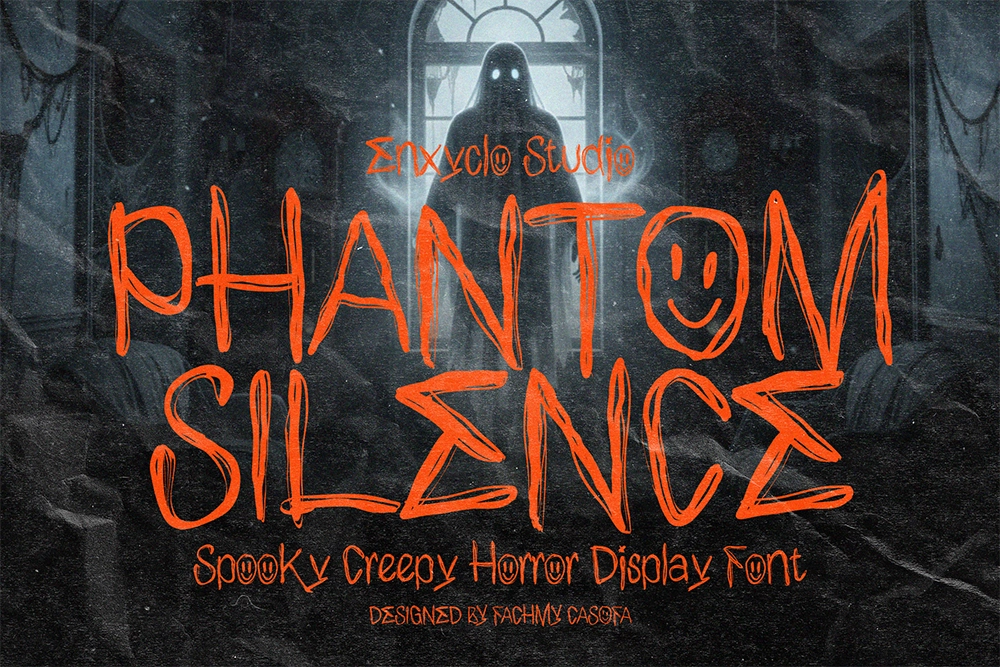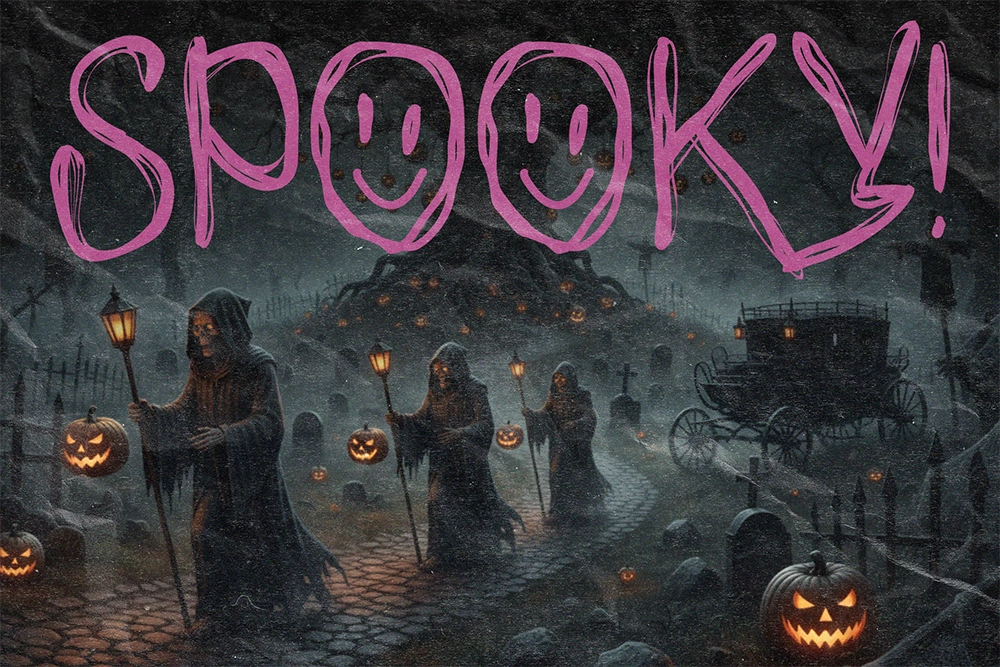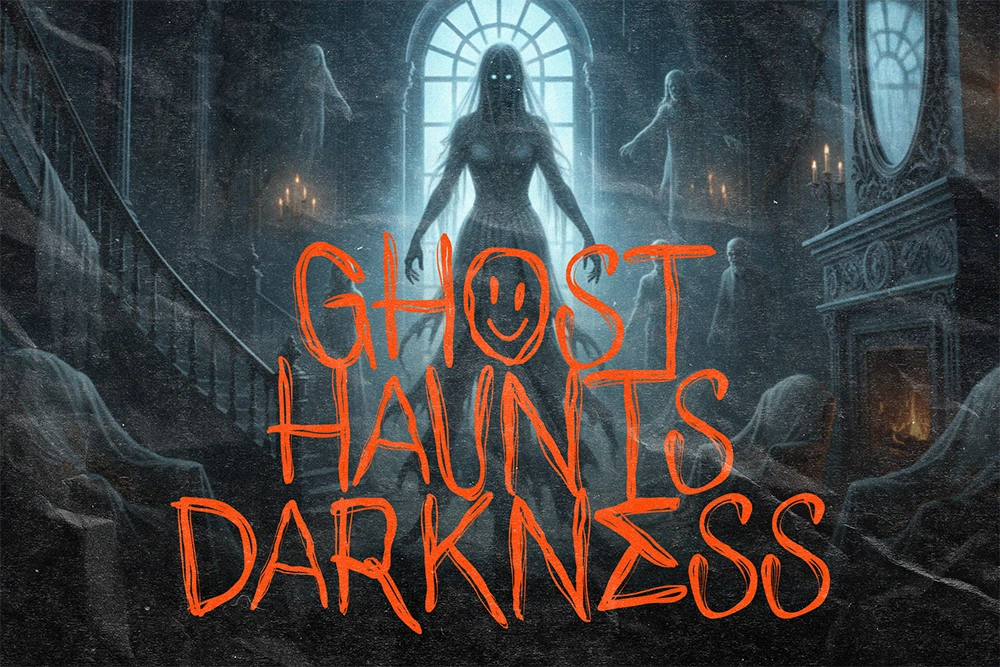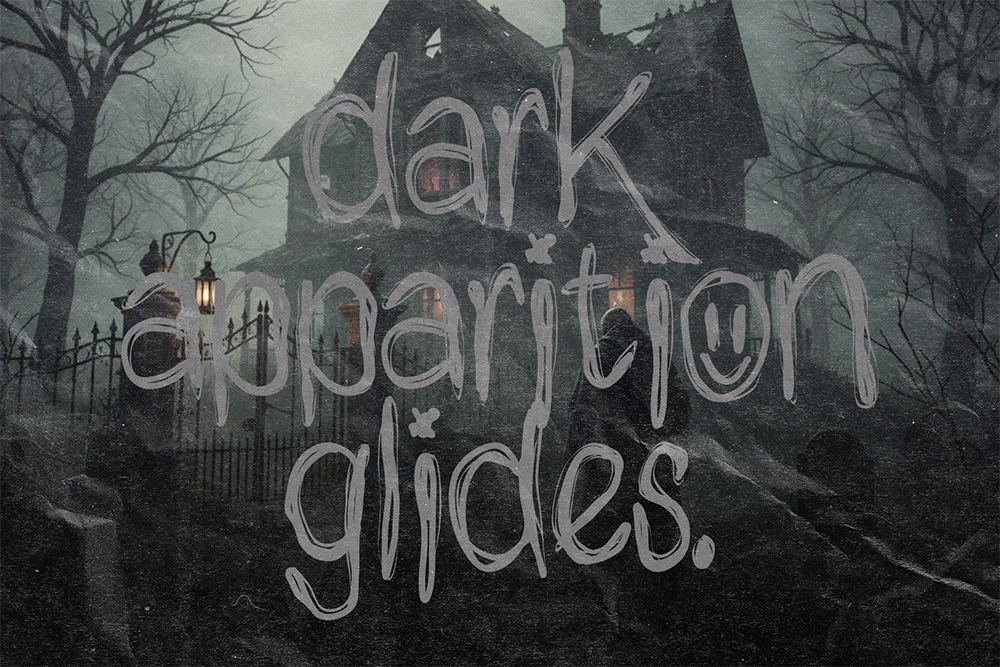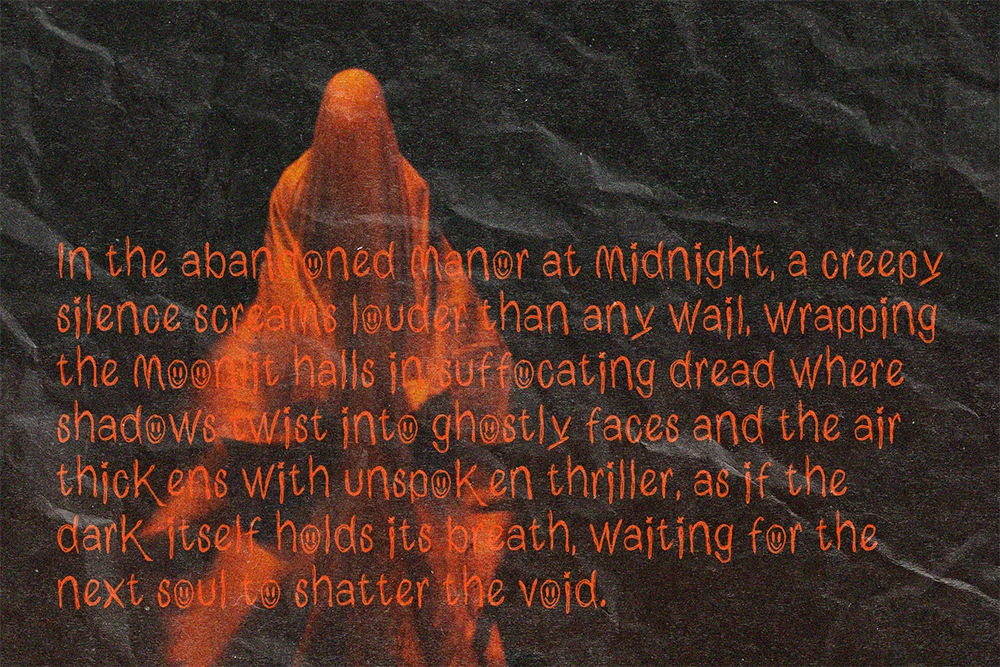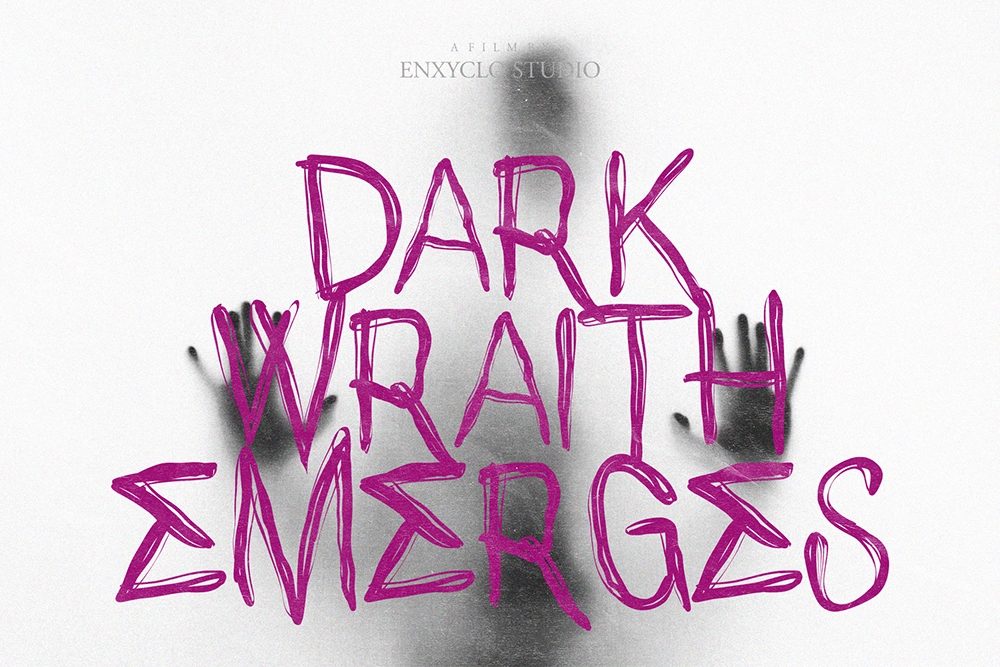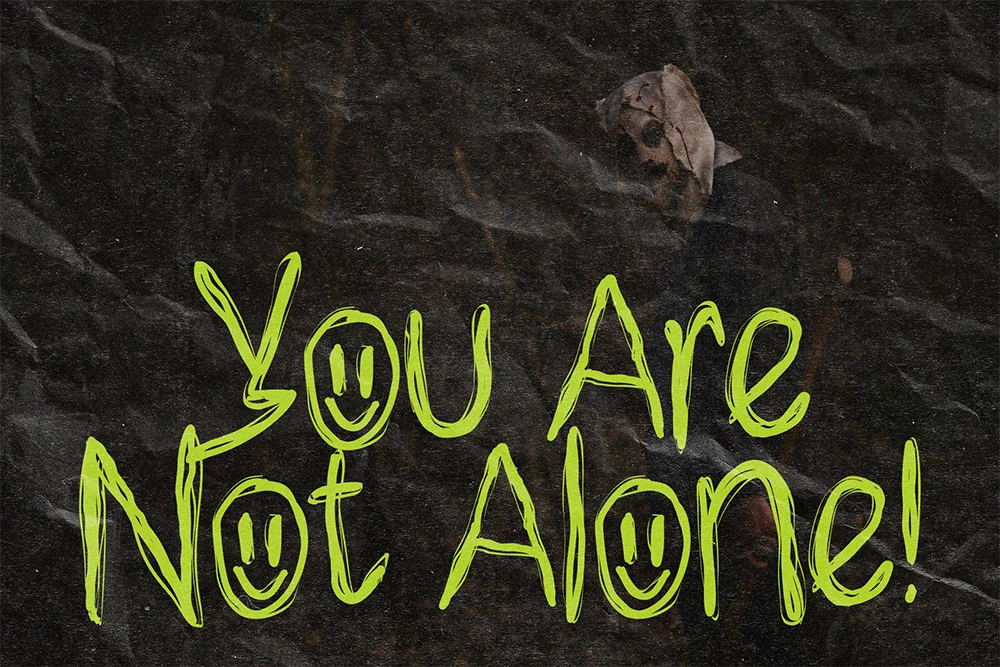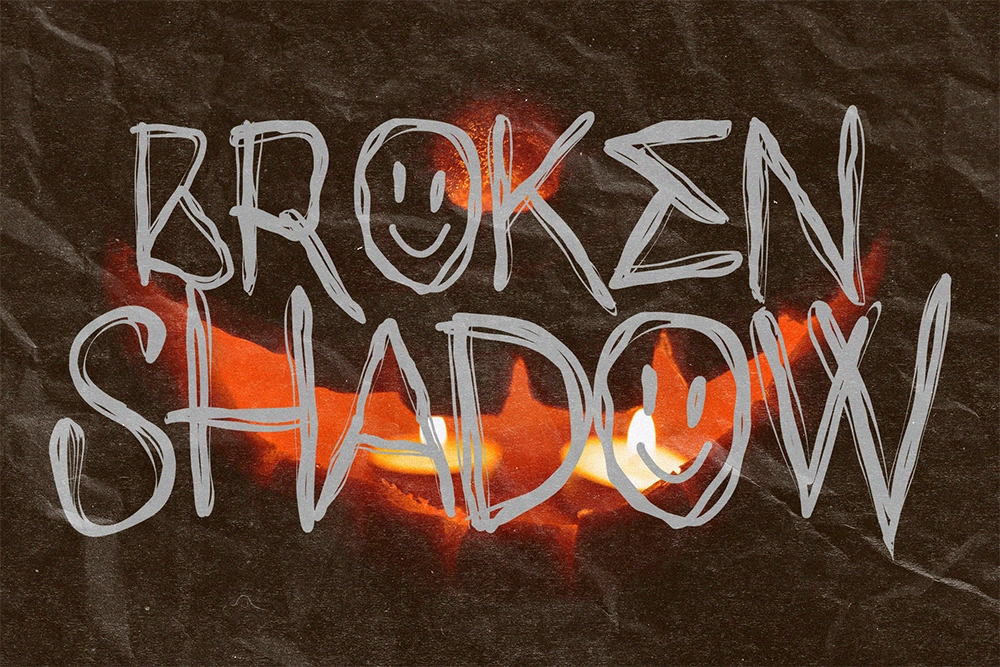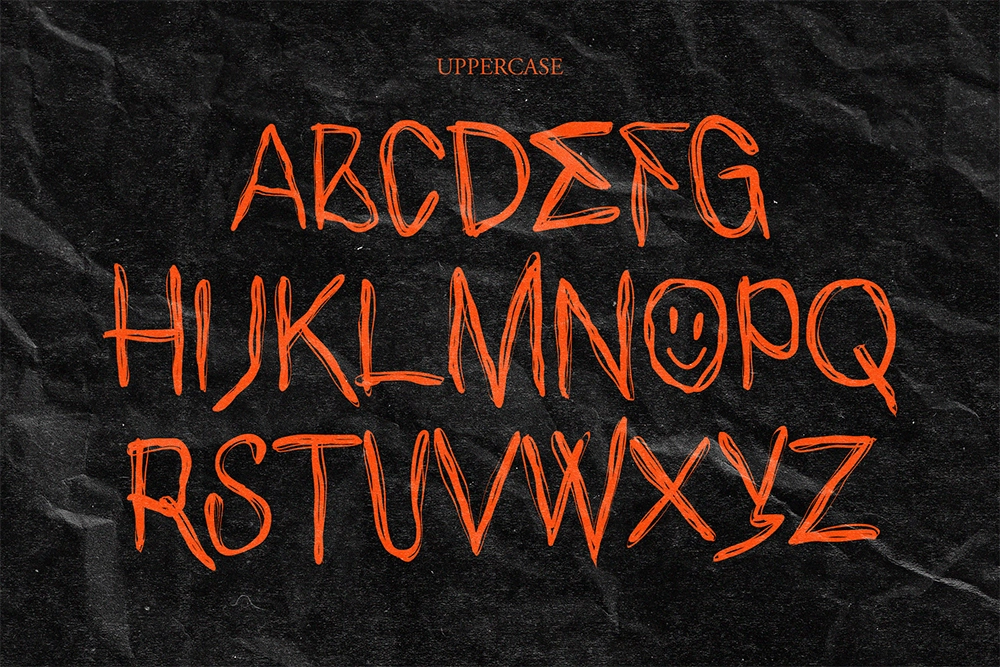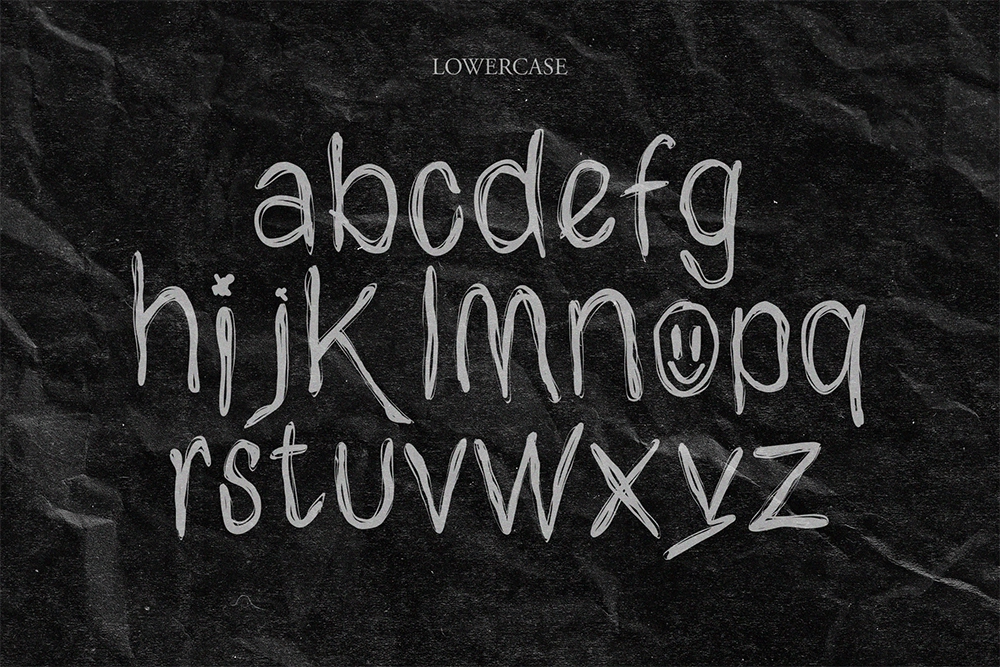
Phantom Silence - Spooky Horror Display Font
Phantom Silence – Spooky Horror Display Font is a dramatic display typeface designed to capture the chilling atmosphere of classic horror aesthetics. With eerie shapes and unsettling letterforms, Phantom Silence brings a dark, mysterious personality to typography, making it perfect for designs that need a haunting visual impact. The font combines creepy stylistic details with strong readability, allowing headlines to feel both frightening and bold.
Created for horror-themed design projects, Phantom Silence works perfectly for Halloween graphics, movie posters, event branding, and spooky promotional materials. Its distinctive character shapes help create intense and memorable typography that instantly sets a suspenseful tone and draws attention.
- Horror Display Style